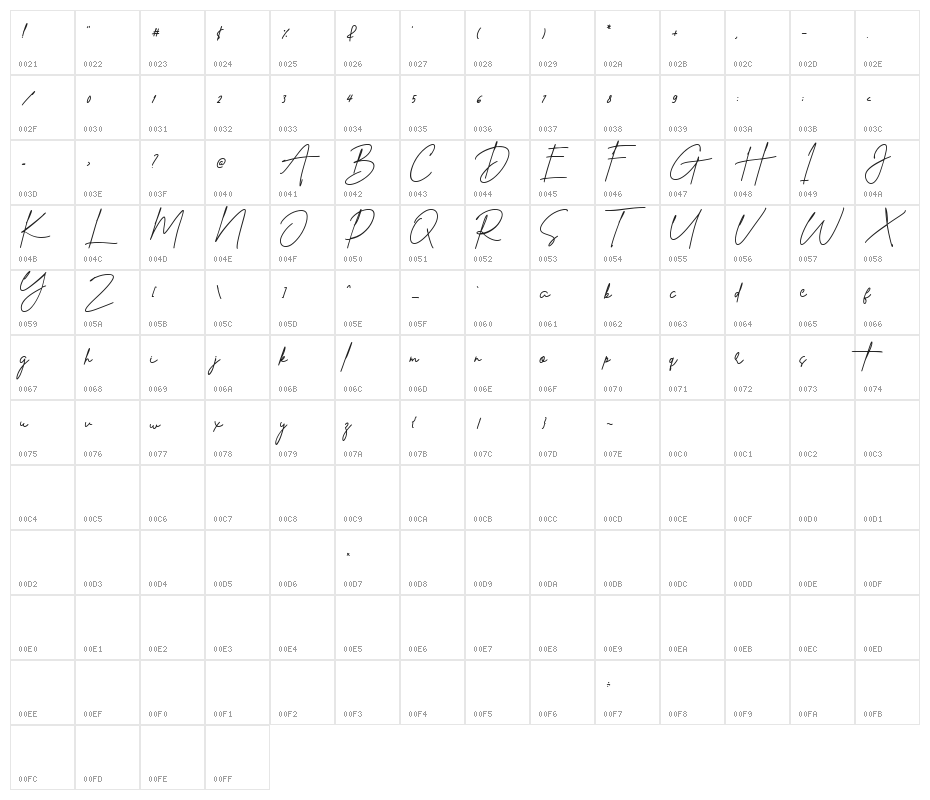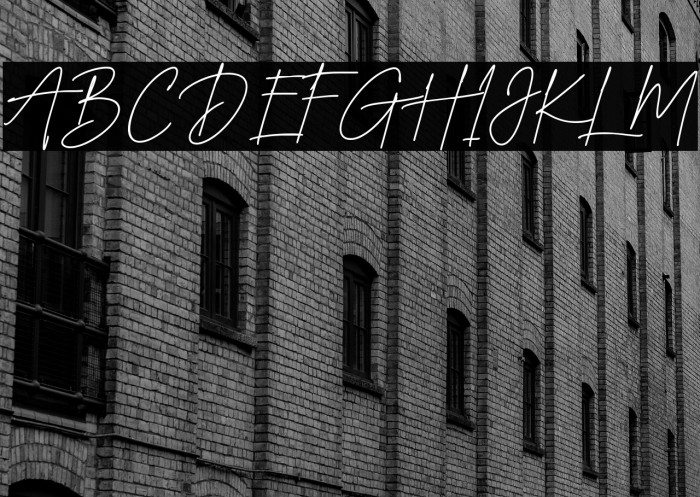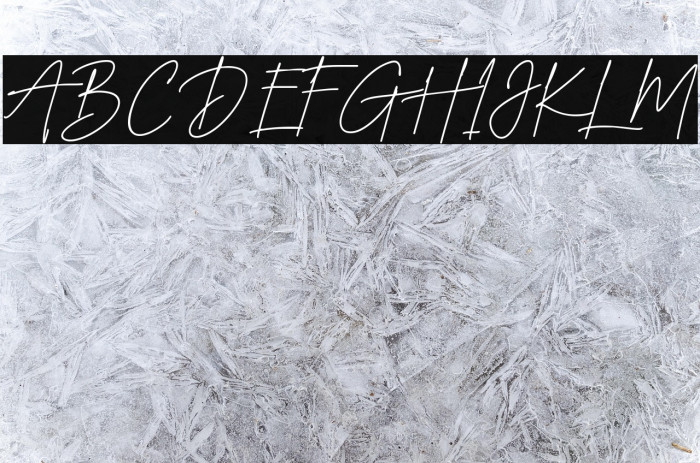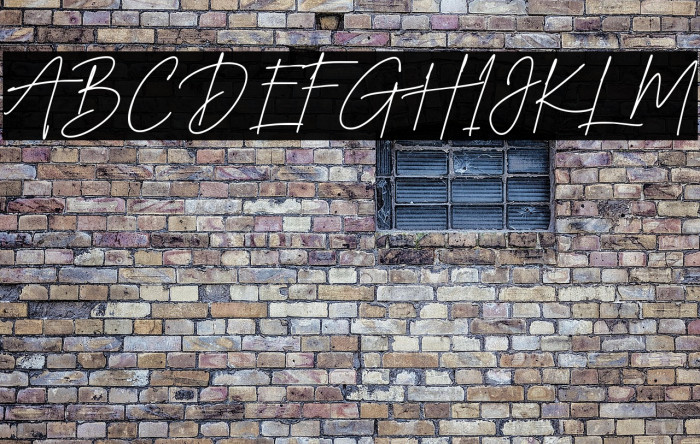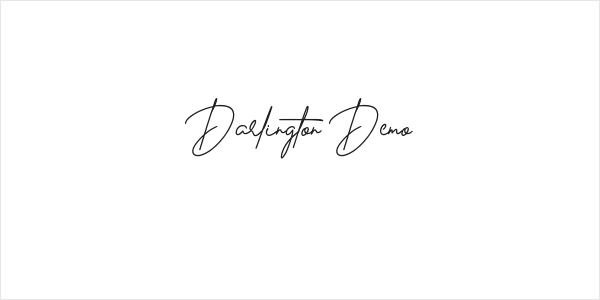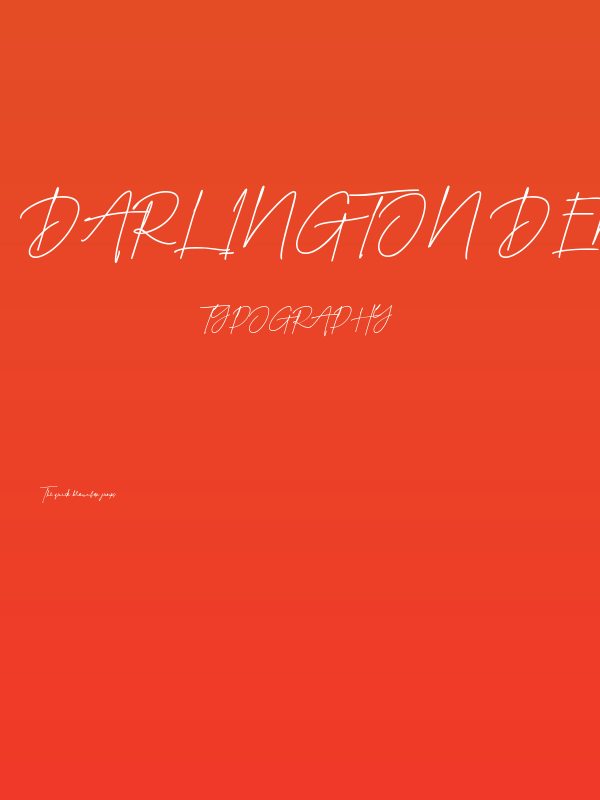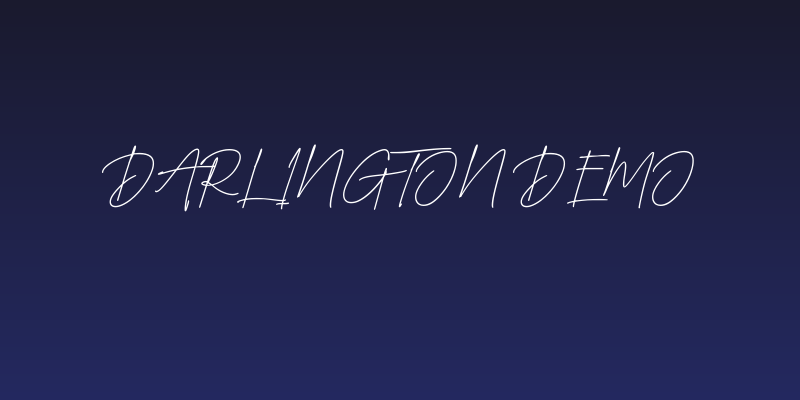
Darlington Demo Font
Darlington Demo Description
This font features a fluid and elegant handwritten style, characterized by its smooth, flowing lines and natural, cursive appearance. The uppercase letters are tall and slightly slanted, giving a sense of movement and grace. The lowercase letters maintain a consistent flow, with some letters featuring unique loops and swirls that add to the font's charm. The numerals are clear and maintain the handwritten aesthetic, while the special characters blend seamlessly with the overall style. This font exudes a personal and artistic touch, making it suitable for projects that require a humanistic and approachable feel.
| Overall Style | Elegant, Artistic |
| Proposed Projects | Ideal for wedding invitations, personal branding, greeting cards, and artistic projects. |